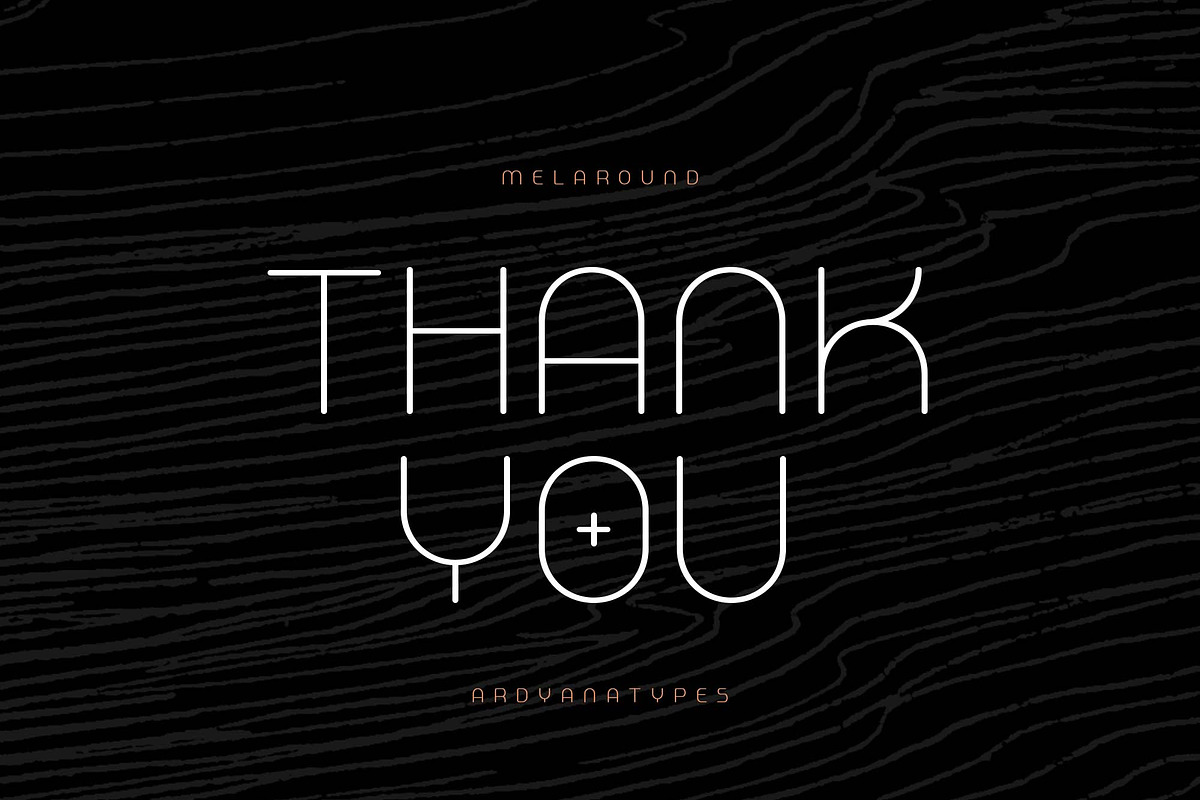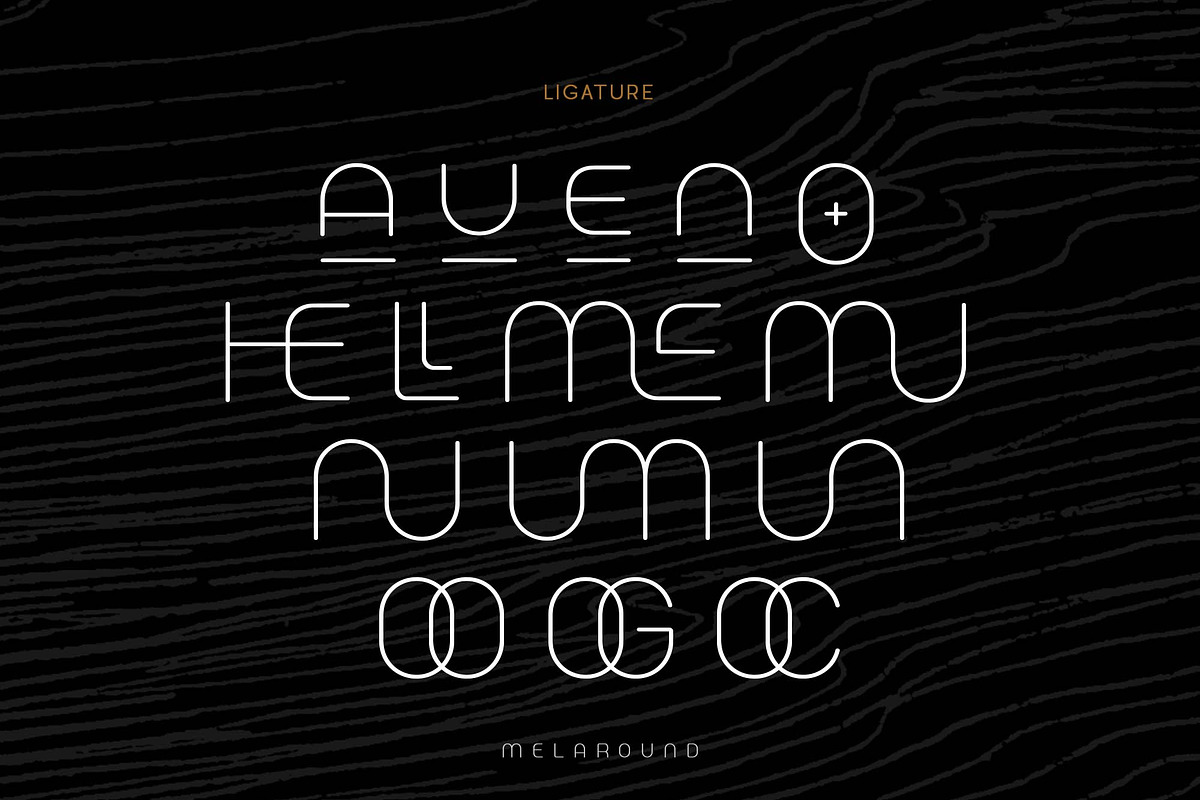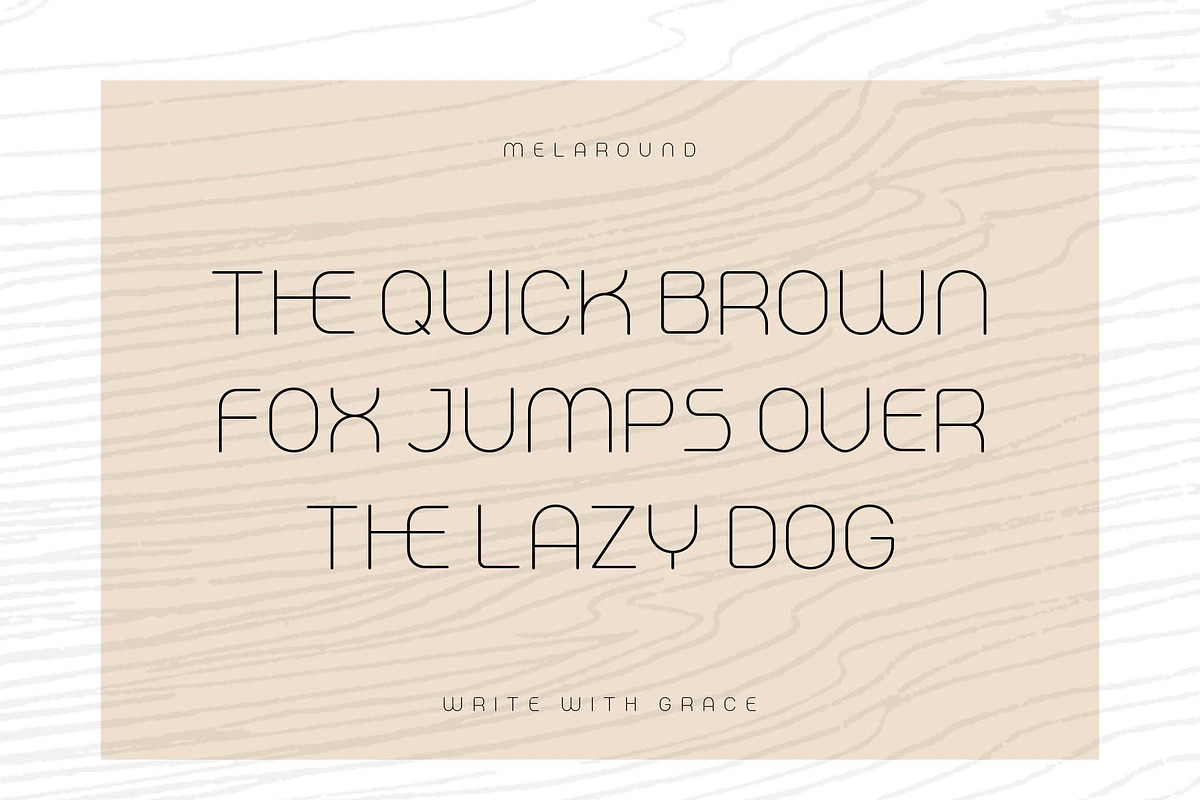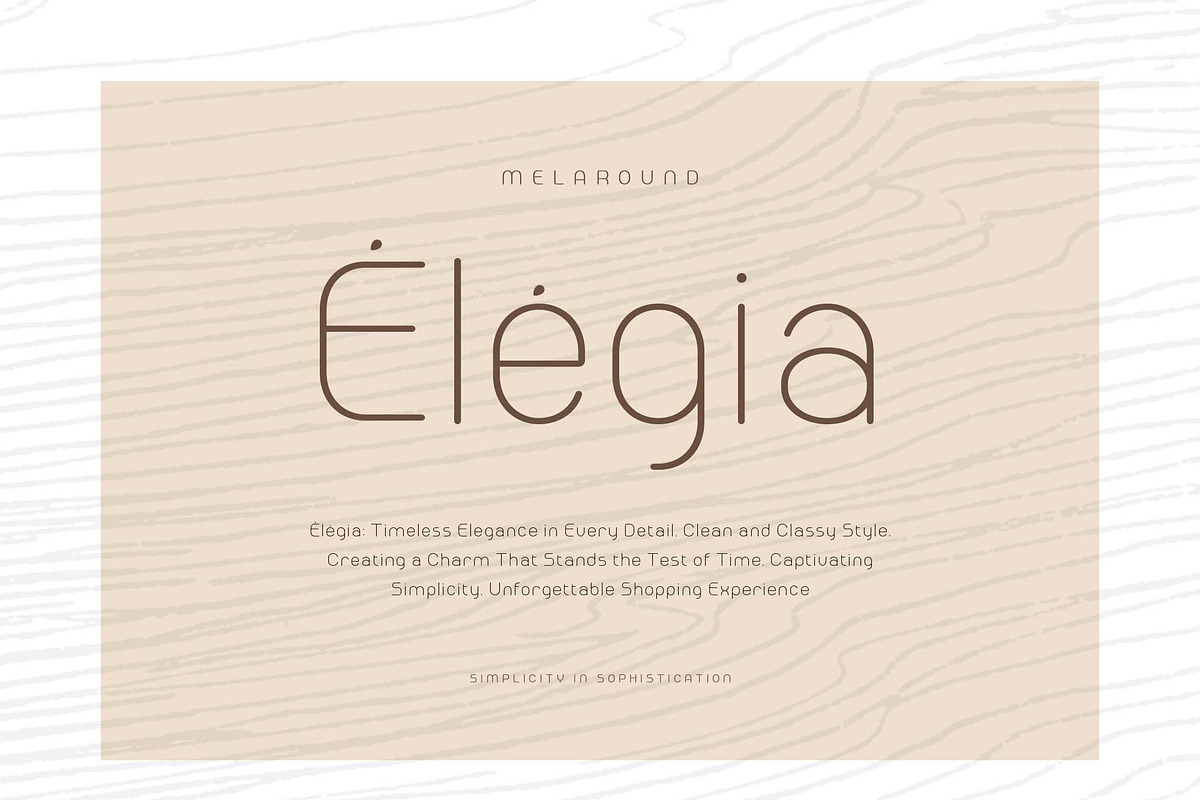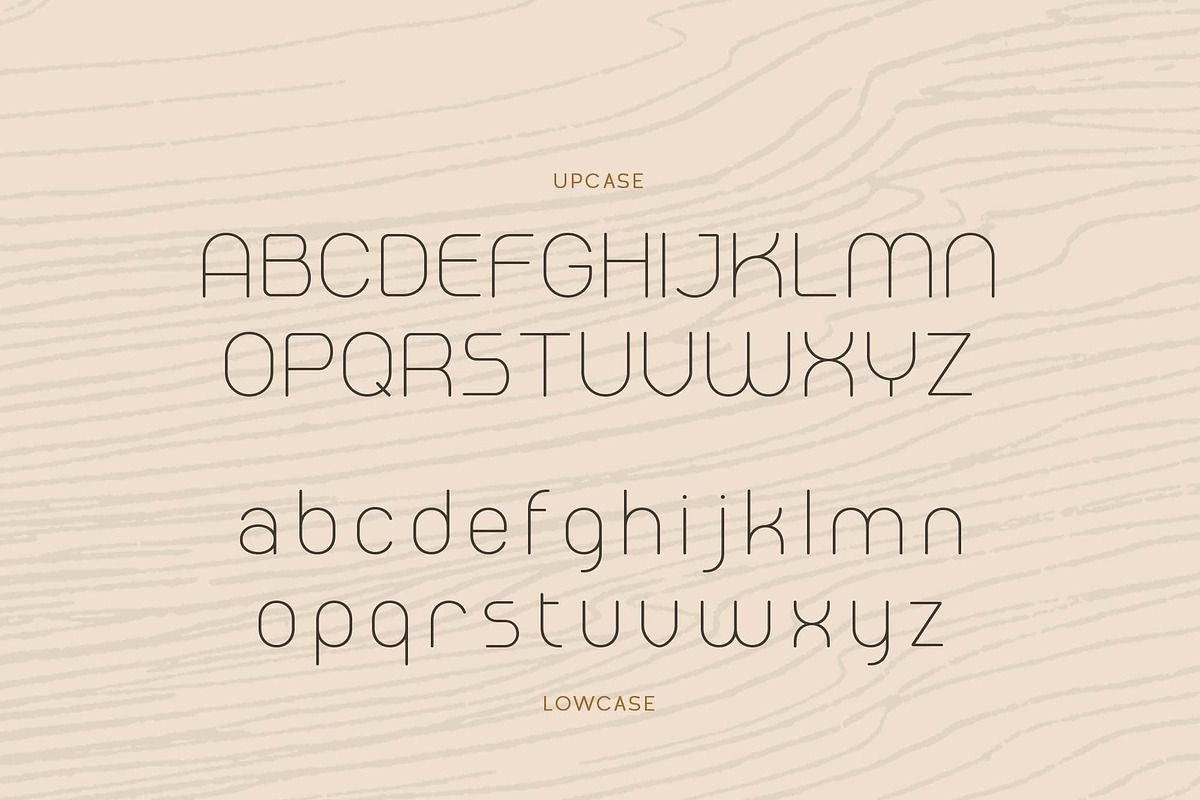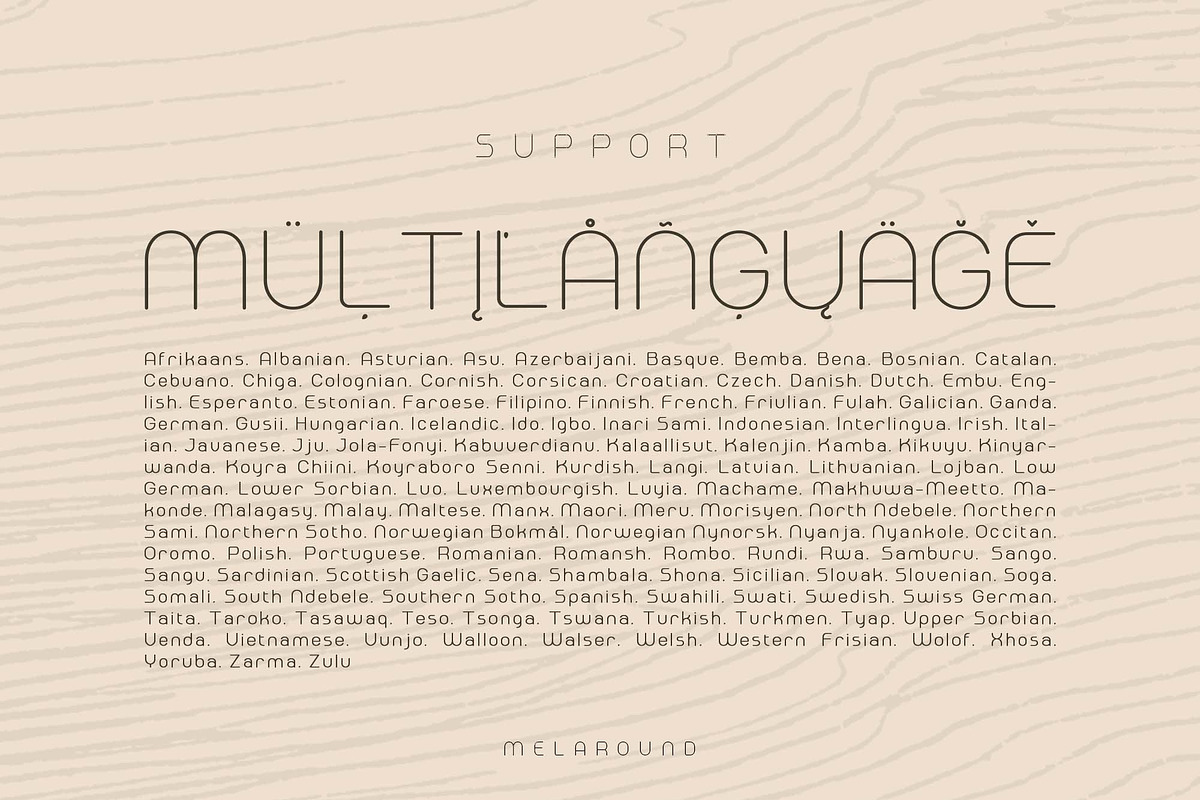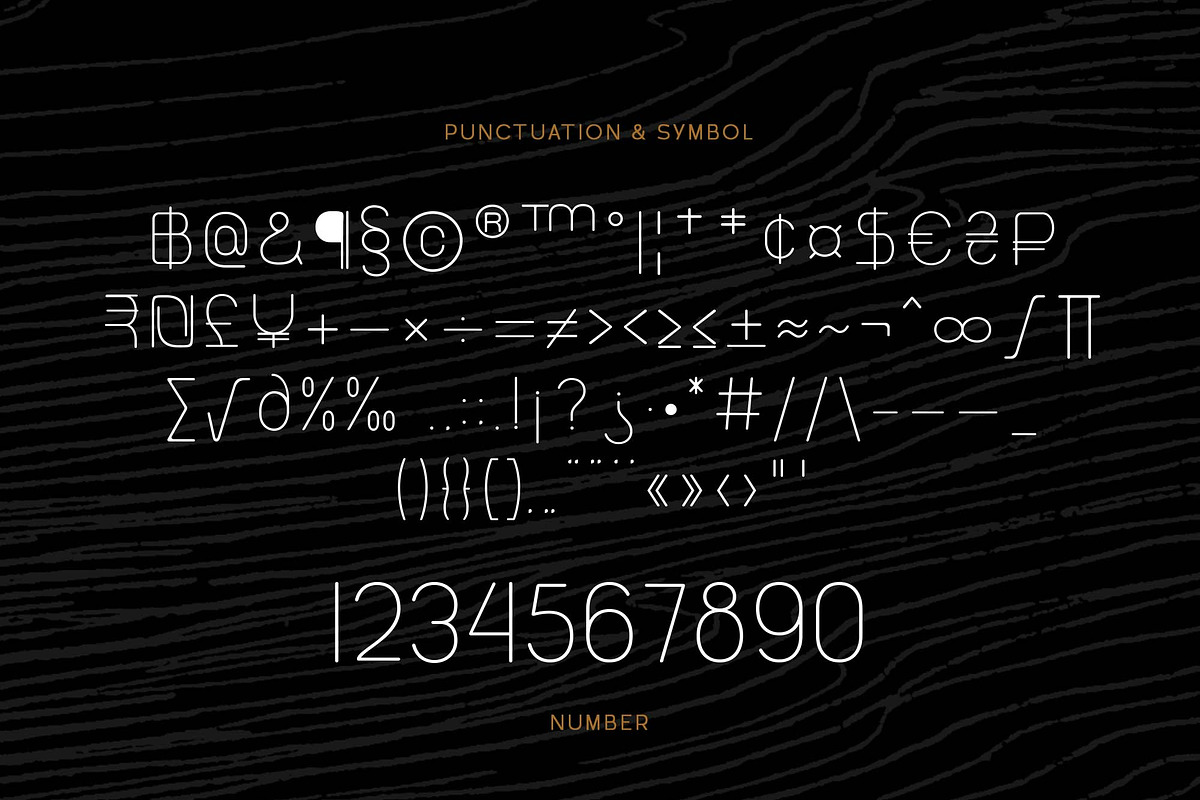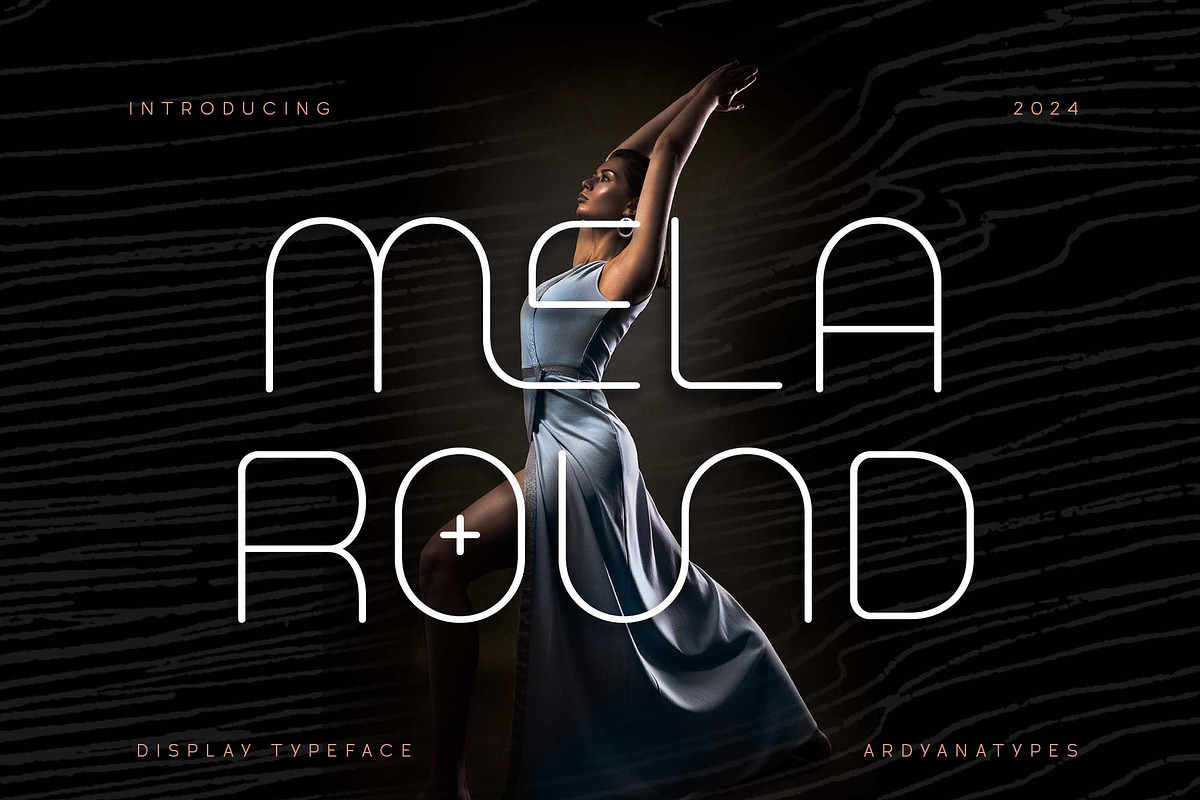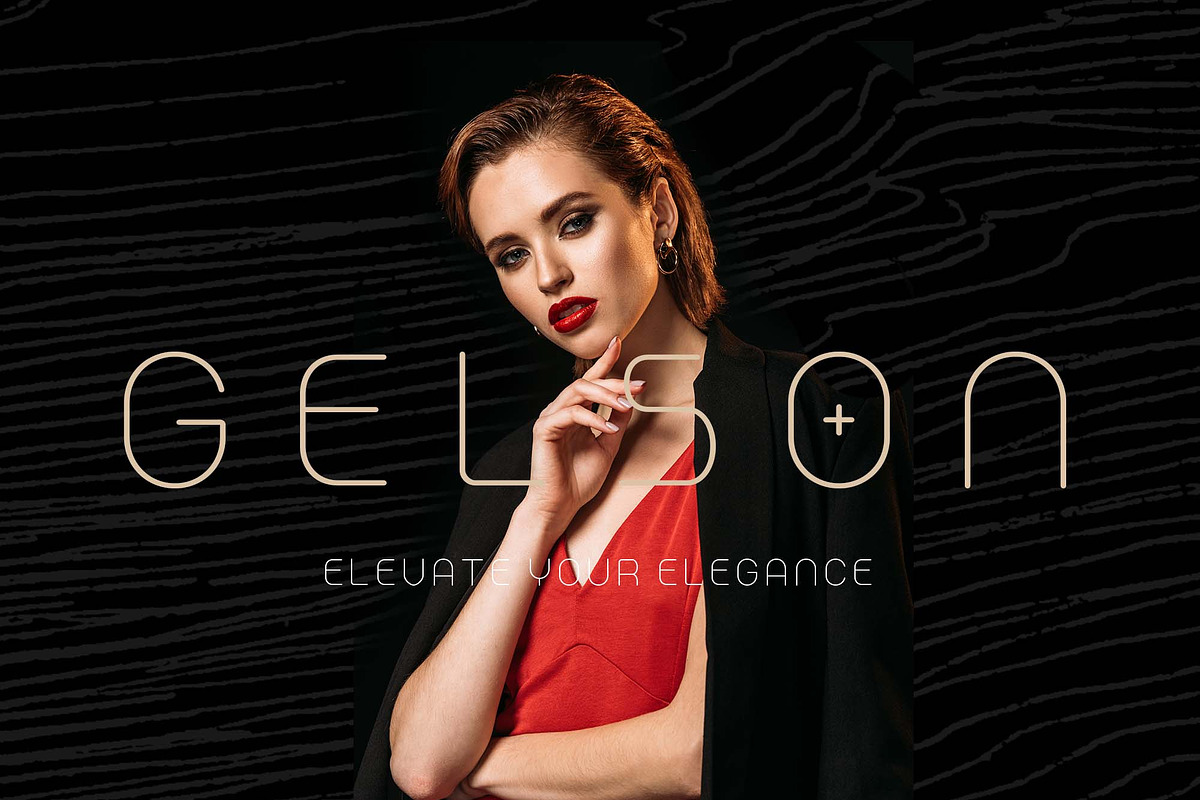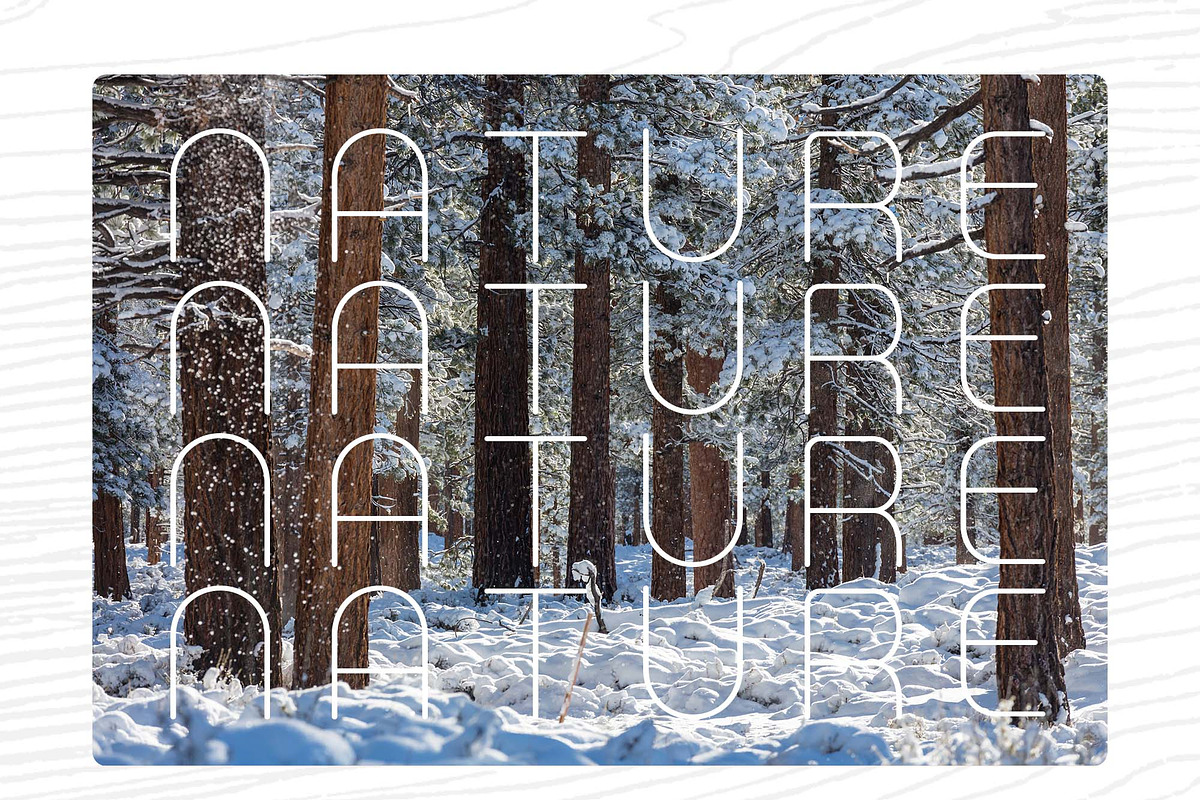
Melaround - Monoline Typeface
Discover the magic of design with Melaround, a monoline display font that combines simplicity and beauty in every curve. This simple yet attractive design makes Melaround the perfect choice for titles and text that want to stand out. With its easy readability and unique aesthetic, this font is suitable for any design, providing a professional and elegant touch. Make every work more stunning with Melaround. What are you waiting for? Improve the quality of your designs and achieve an unforgettable impression. Get Melaround now, and start creating not only seen but also felt designs!
A – Z Character Set
a – z Characters set
Numerals & Punctuations
Ligatures & Alternates